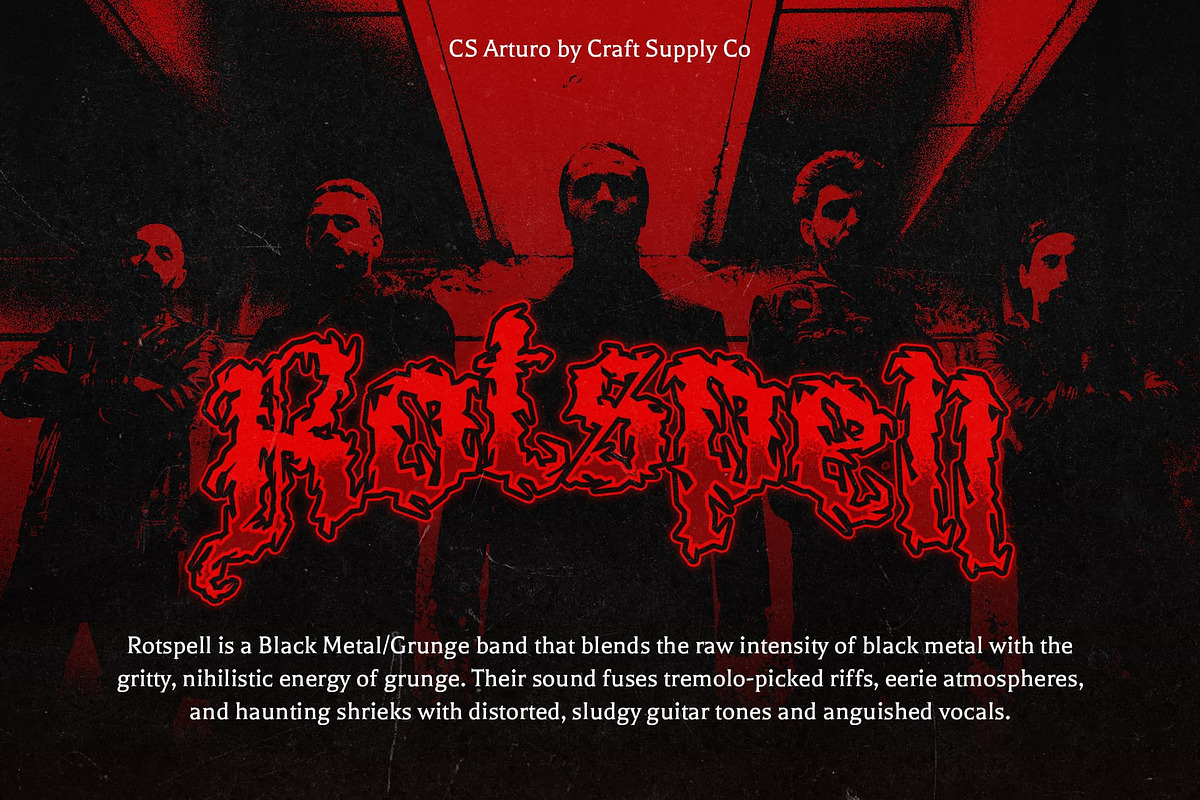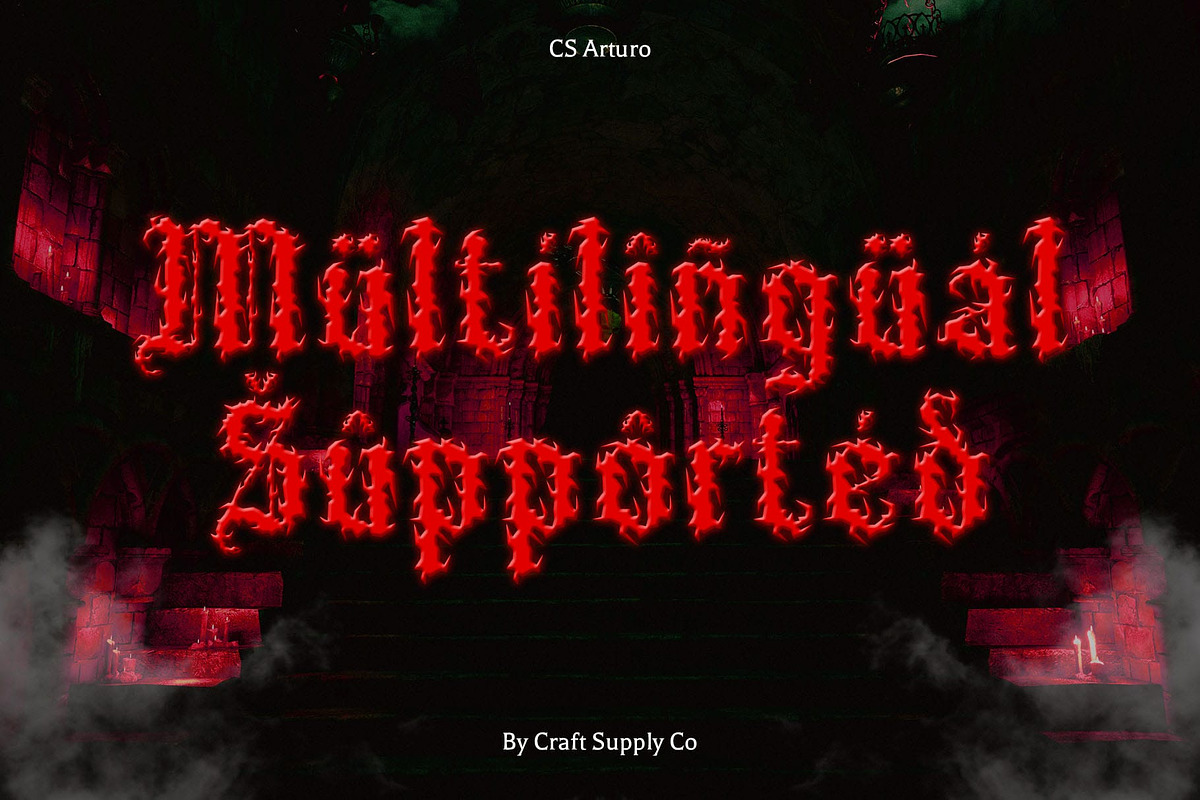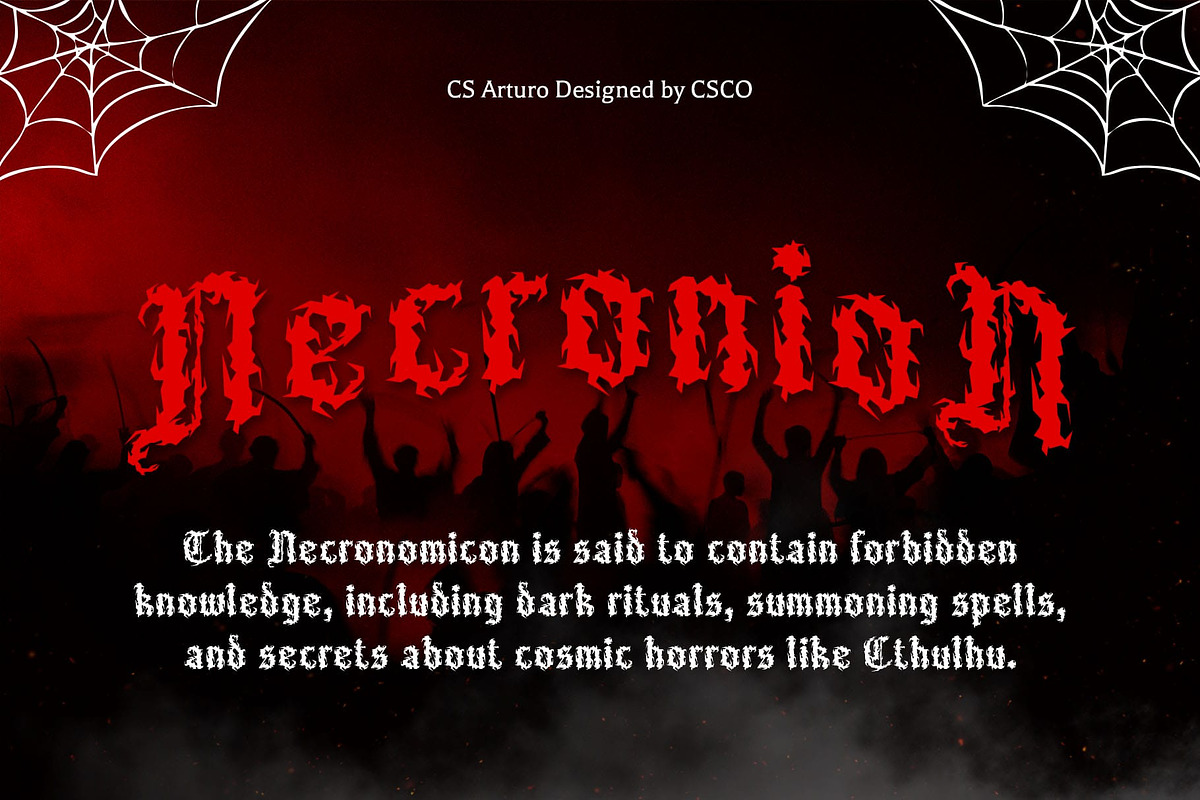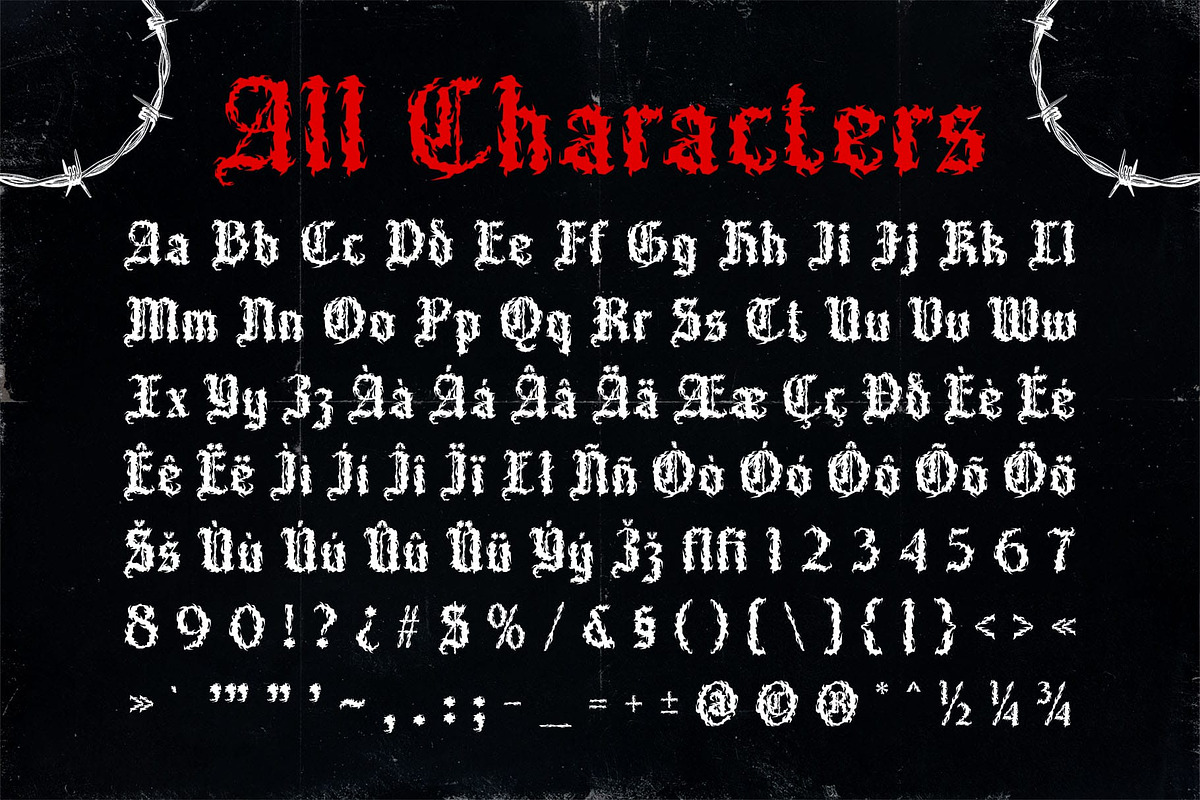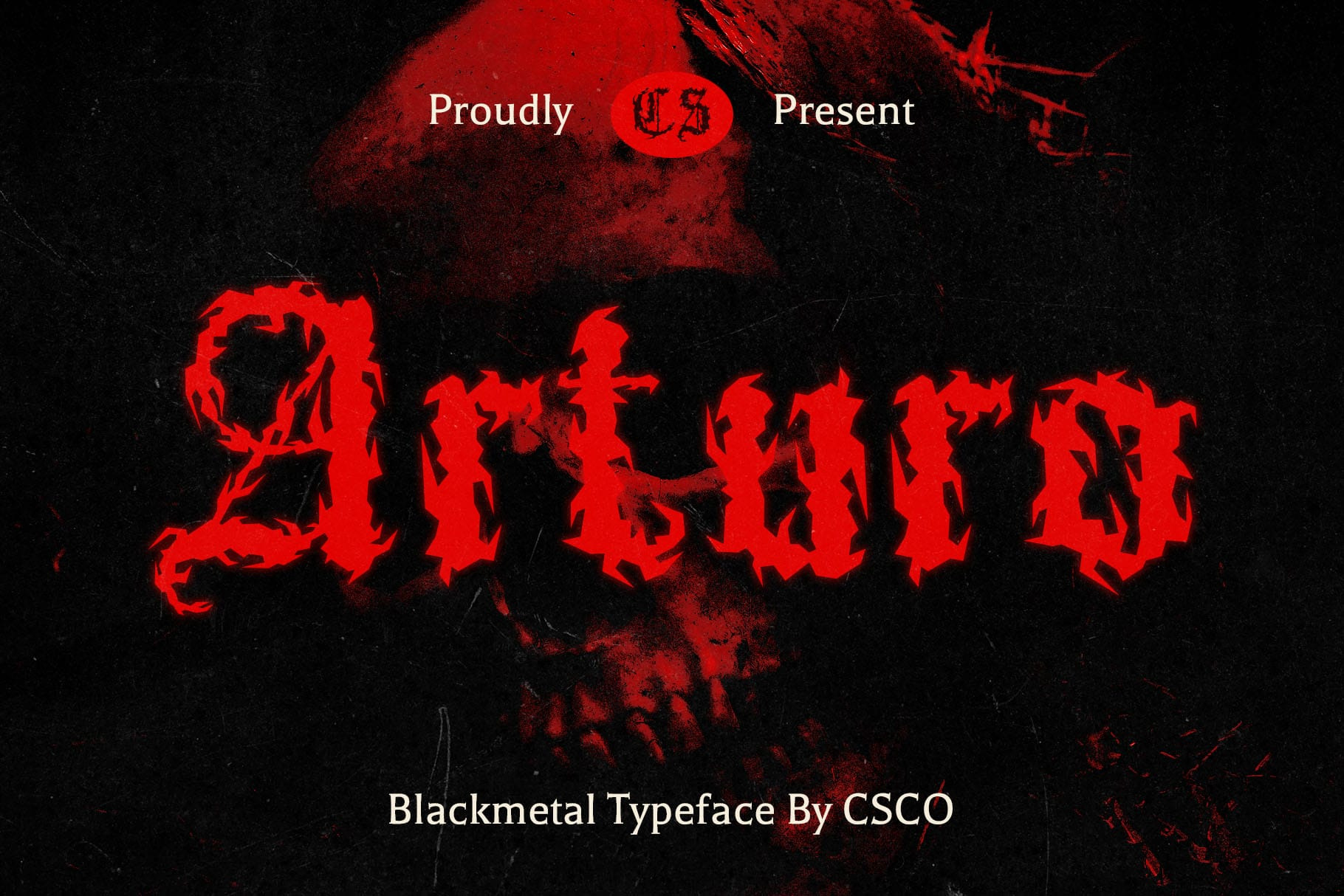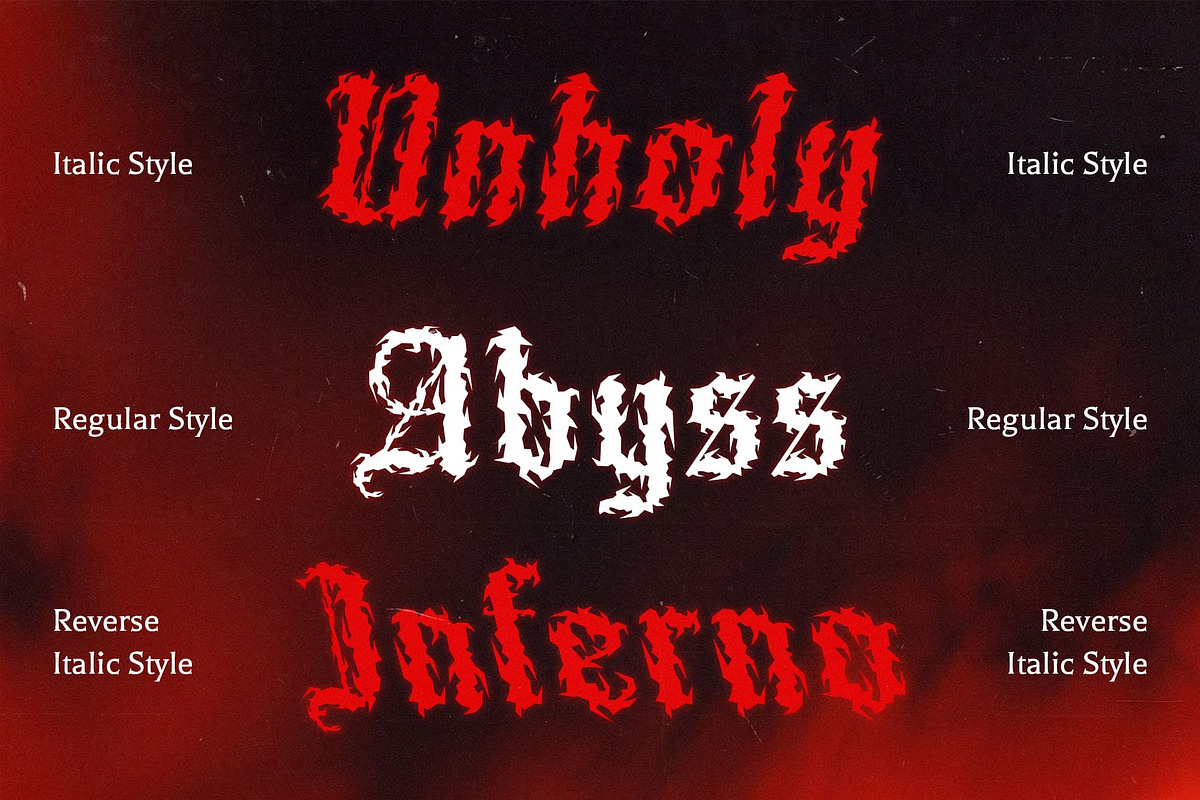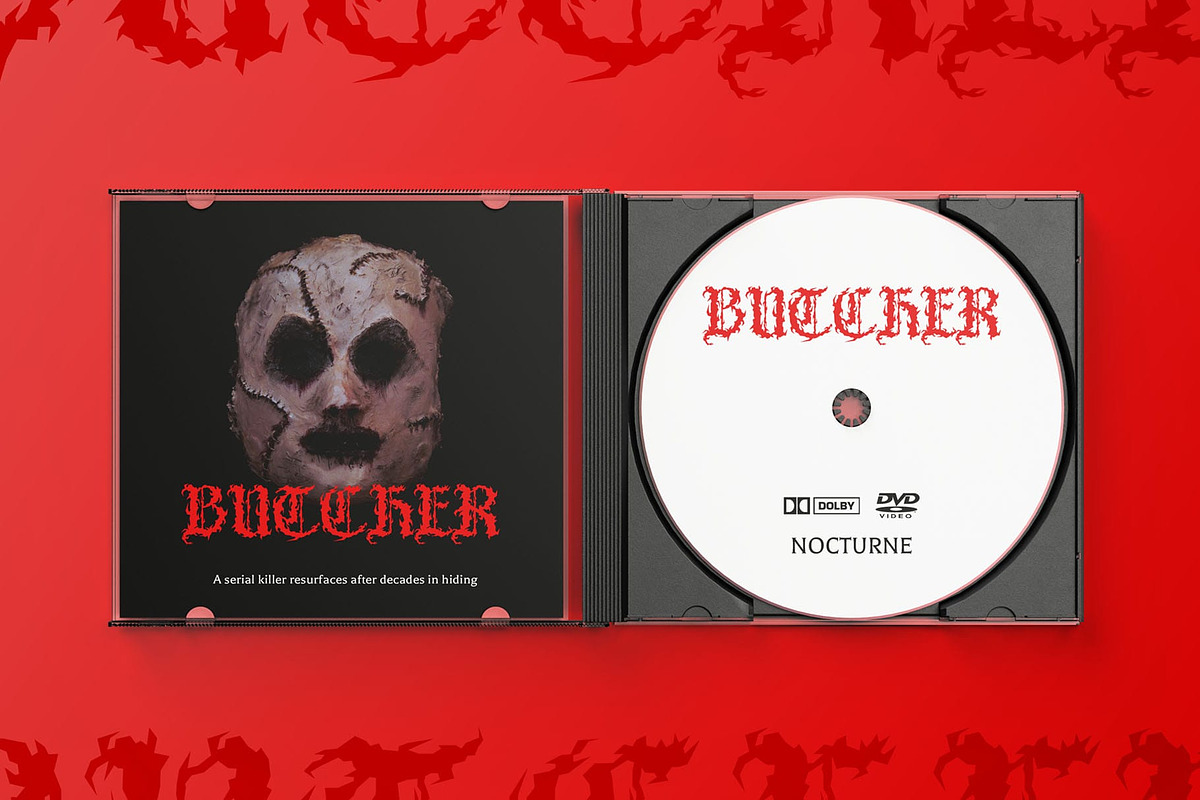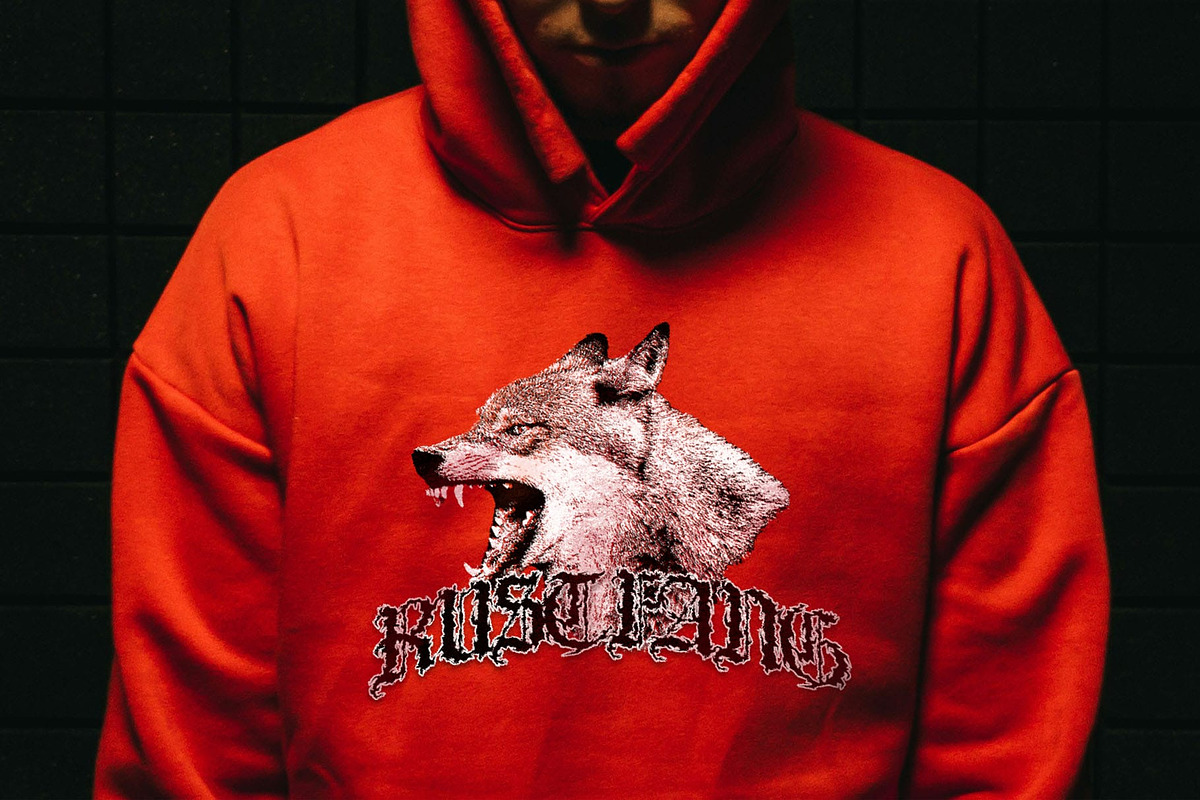
CS Arturo – Black Metal Font
CS Arturo – Black Metal Font: Dark, Powerful, and Uncompromising
Aggressive Black Metal Aesthetic CS Arturo – Black Metal Font is a display typeface designed to evoke the raw power and mystery of the Black Metal genre. Featuring sharp, jagged edges and pointed lines, it channels the aggressive, extreme aesthetic often associated with dark and heavy music. The font’s forms, which resemble twisted roots or eerie symbols, capture the harsh and ominous atmosphere of the subculture.
Distinctive, Art-Inspired Letterforms With its thorn-like shapes and intricate details, CS Arturo doesn’t just serve as functional typography—it acts as an artistic expression. Its irregular forms make the font stand out as a visual element, making it more suited for creative, unconventional designs rather than traditional text usage.
Perfect for Metal and Gothic Designs This font is ideal for creating powerful, eye-catching metal band logos, concert posters, album covers, merchandise, and any design project that aims to embrace a dark and edgy aesthetic. Its intense visual impact makes it a fitting choice for gothic, horror, or occult-themed graphics that require a distinctive, bold statement. Due to its highly stylized and aggressive look, CS Arturo serves more as a visual statement than readable text. It’s perfect for designers looking to create a unique, atmospheric tone that exudes rebellion, darkness, and strength, perfect for projects with a heavy, rebellious spirit.
- CS Arturo Regular
- CS Arturo Italic
- CS Arturo Reverse Italic